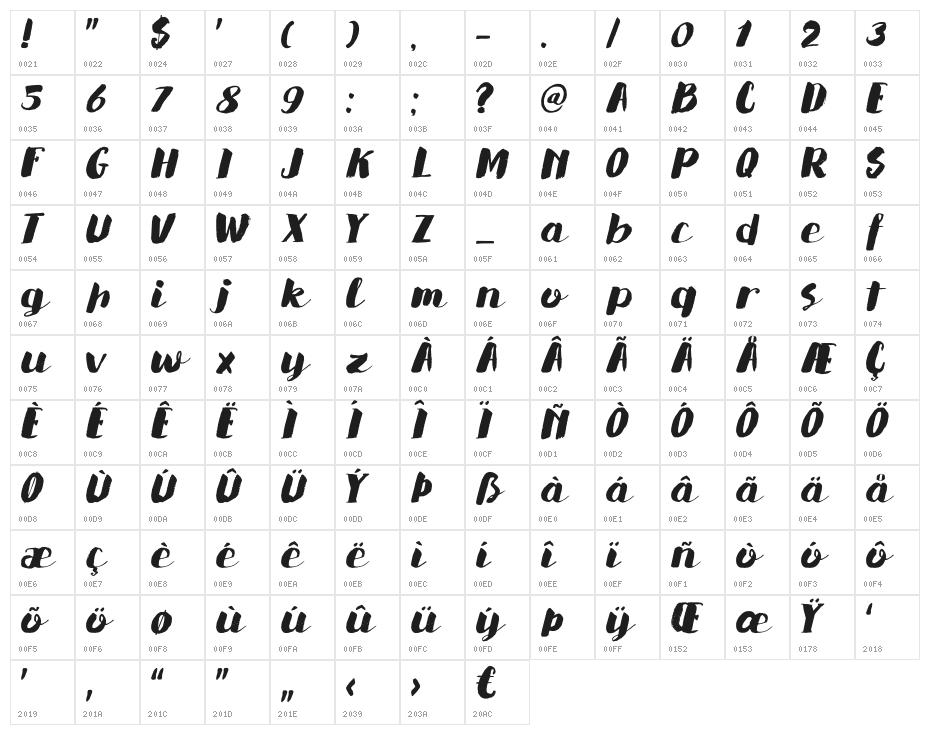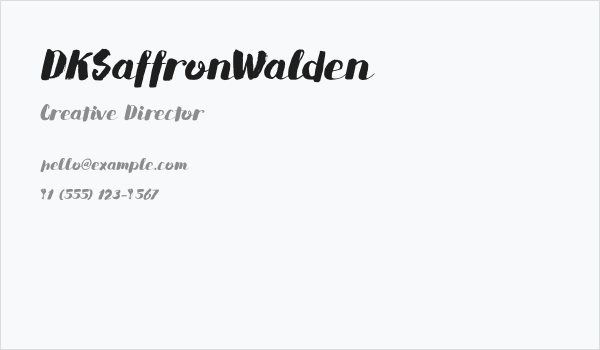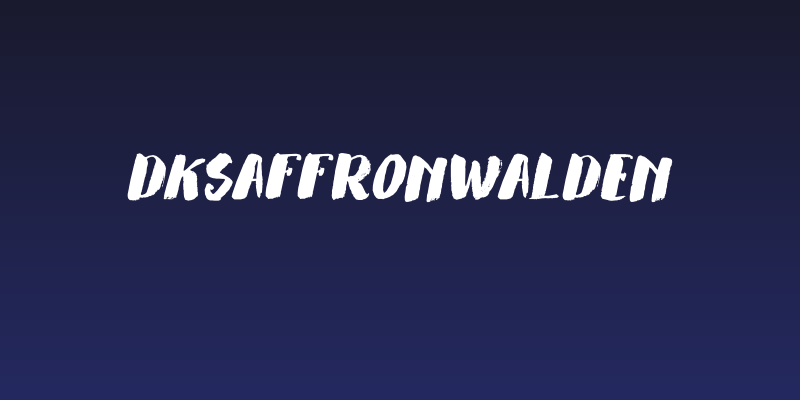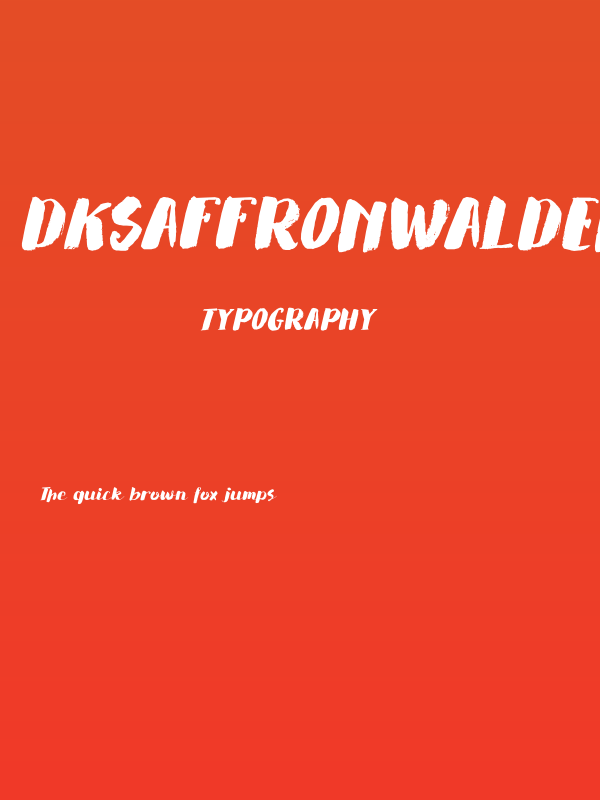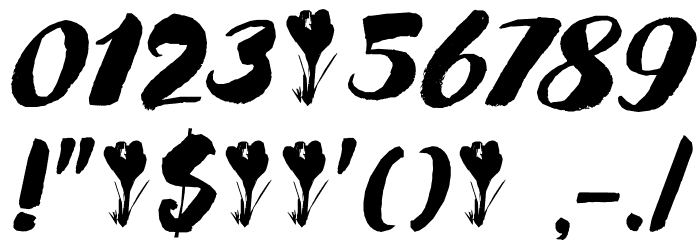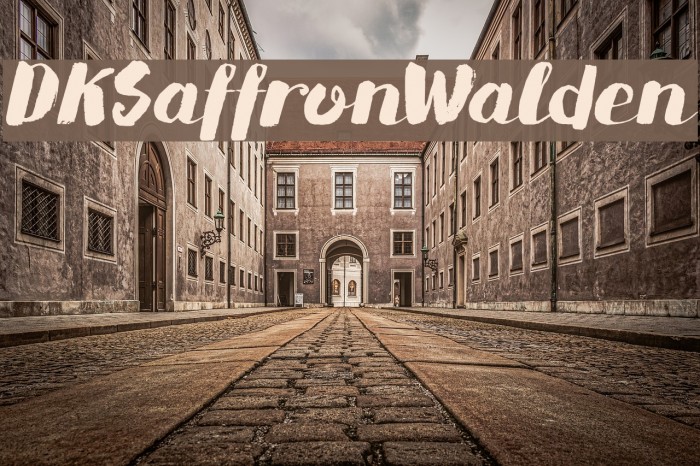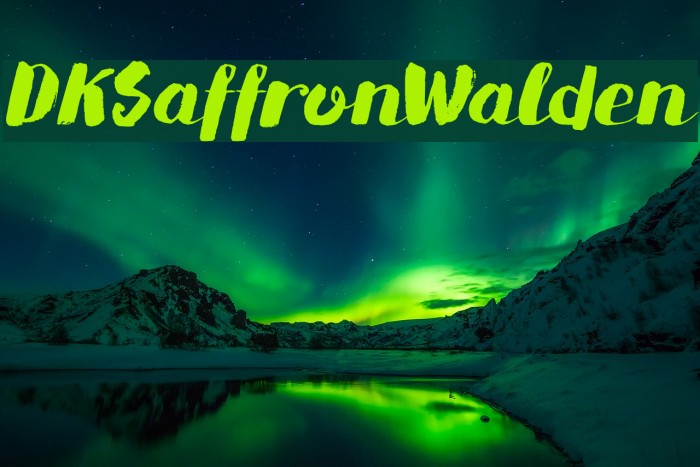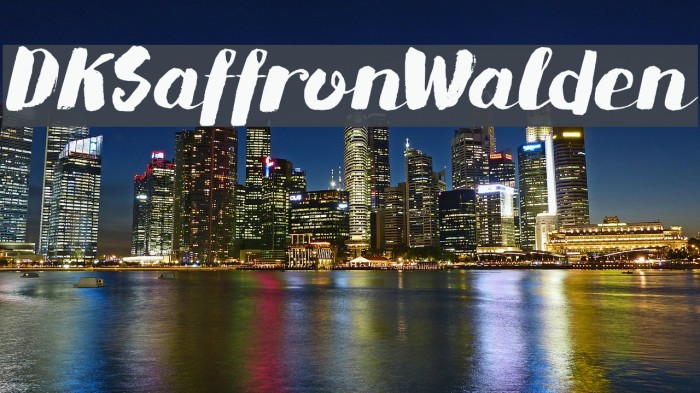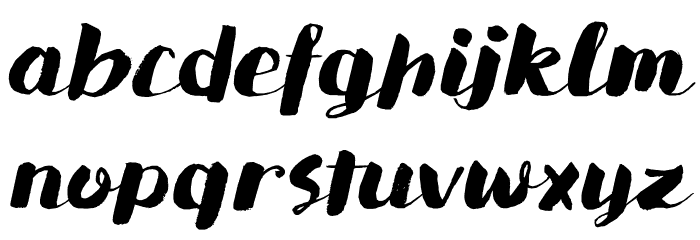
DKSaffronWalden Font
DKSaffronWalden Description
This font features a bold and expressive brush style, characterized by its dynamic and fluid strokes. The letters have a hand-painted appearance, with varying thickness that adds a sense of movement and energy. The uppercase and lowercase letters maintain a consistent style, with some characters exhibiting unique flourishes that enhance their artistic appeal. The numbers and special characters follow the same bold and artistic design, making the font versatile for creative projects. The overall impression is one of creativity and boldness, suitable for making a strong visual impact.
| Proposed Projects | Ideal for branding, posters, artistic projects, and any design requiring a bold, creative touch. |